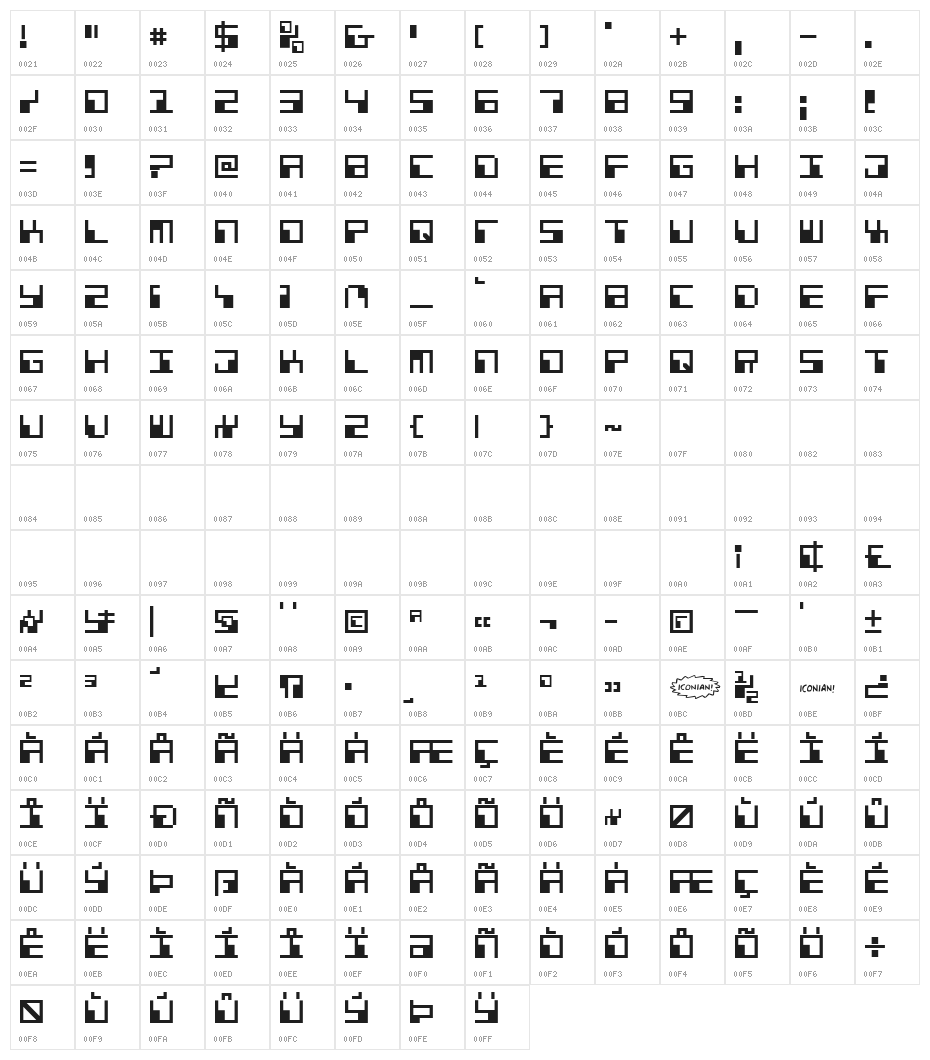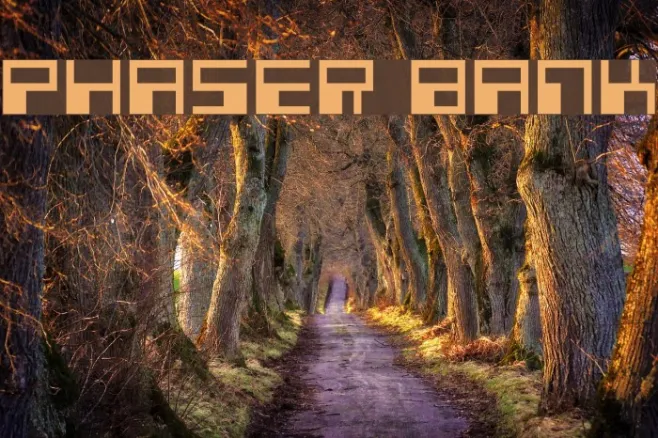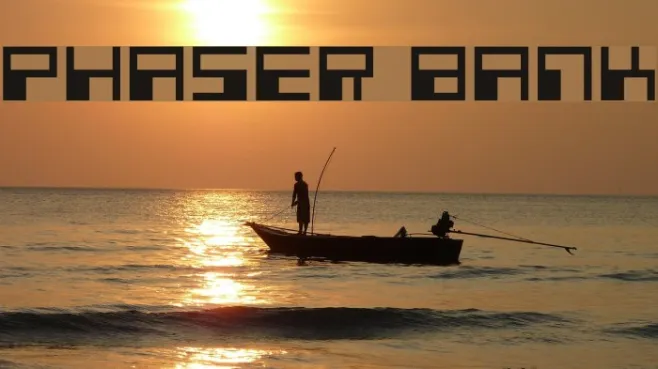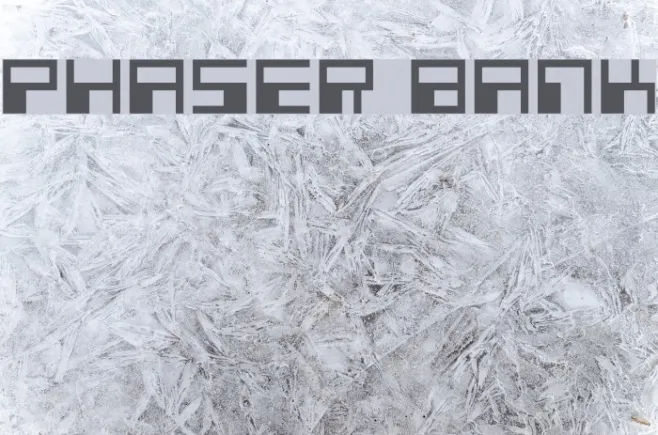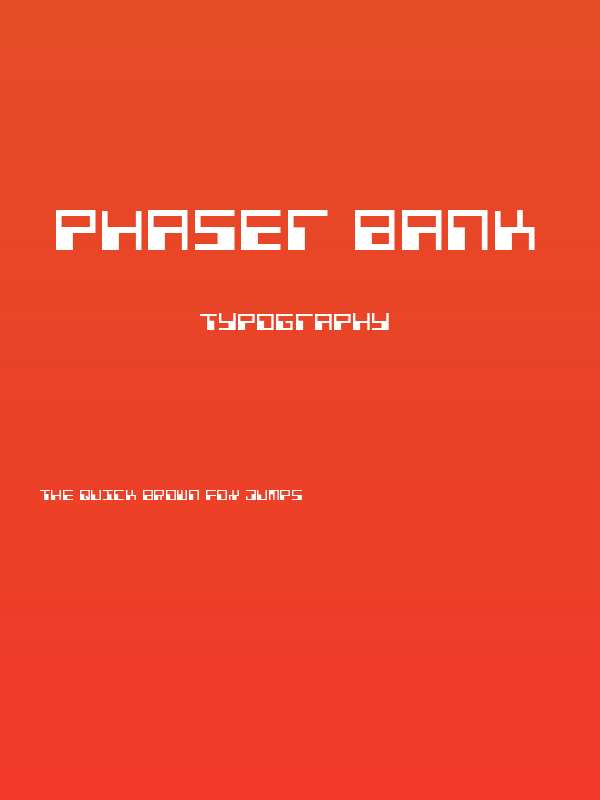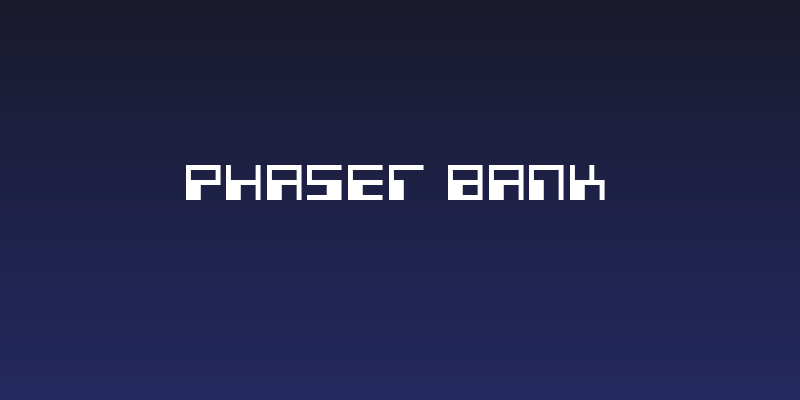
Phaser Bank Font
Phaser Bank Description
This font features a bold, geometric design with a futuristic and digital aesthetic. The characters are constructed with sharp angles and straight lines, creating a blocky and mechanical appearance. The uppercase and lowercase letters maintain a consistent style, emphasizing uniformity and precision. The numerals and special characters follow the same design principles, ensuring a cohesive look across all elements. This font is ideal for projects that require a modern and tech-inspired feel, such as digital interfaces, video game graphics, or sci-fi themed designs.